Introduction to Example of TP Font Usage: “Websites Part 2”
Type Project font will be introduced based on examples of usage in each medium, including packages, books, websites, and advertisements. I would like to introduce some of the websites using corporate fonts developed by Type Project.
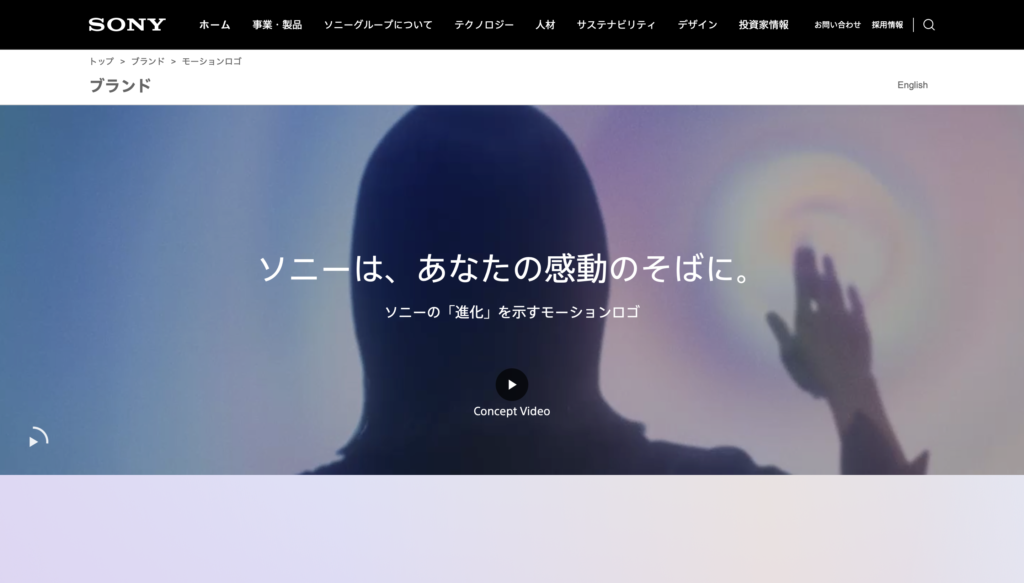
Sony Brand Website
[Type Project Font Used]
SST JP
SST JP, which is the corporate font exclusive to Sony, is used extensively.
Its expression is once again distinctive of a corporate font that perfectly fits the brand image. It has softness in the otherwise sharp and rigid impression it gives.
SST is a jointly-developed corporate font for the Sony Corporation and Monotype Imaging Inc. On receiving a commission from Monotype Imaging Inc., Type Project developed the Japanese font SST JP.
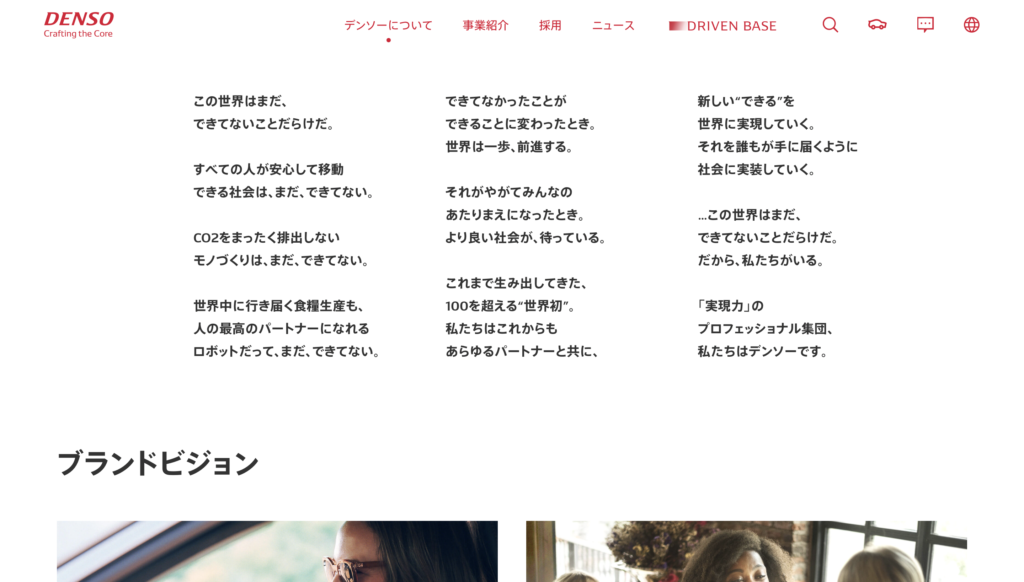
Denso Brand Website
[Type Project Font Used]
DENSO TP 2017
DENSO TP 2017, the corporate font of Denso, is used extensively here.
In DENSO TP 2017, the FitFont Service based on the AXIS Font is used to typeset the Japanese part on the Latin corporate font developed in advance. It gives a different impression than the usual AXIS Font.
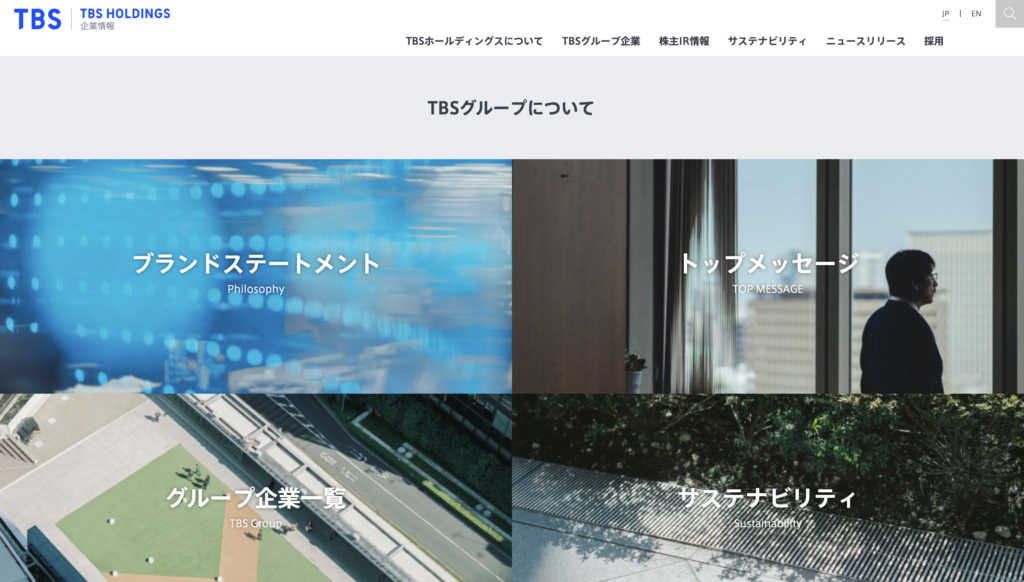
TBS HOLDINGS, INC.
[Type Project Font Used]
TBS Gothic TP
TBS Gothic TP, the corporate font of TBS, is used extensively on the site.
TBS Gothic TP is a font set at an optimal numerical value using the FitFont Service based on AXIS Font. Apart from TBS Gothic TP, TBS Mincho TP as another corporate font and TBS Sans TP as a branding font are provided at the same time.
This is a good example in which the corporate font is effectively used as a part of branding.